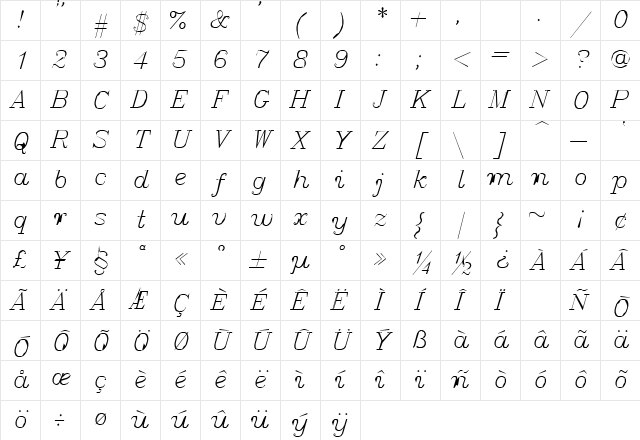
ItalicC Regular
Design Context for ItalicC
ItalicC is a composed and adaptable typeface that performs quietly and consistently across a wide range of design contexts. The slanted form adds forward momentum and visual energy.